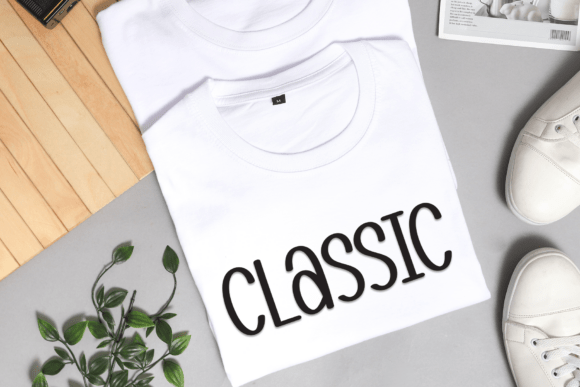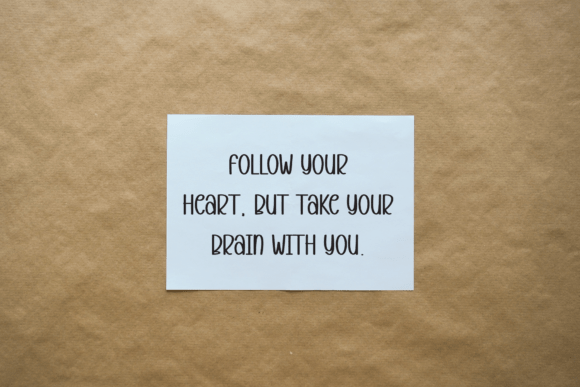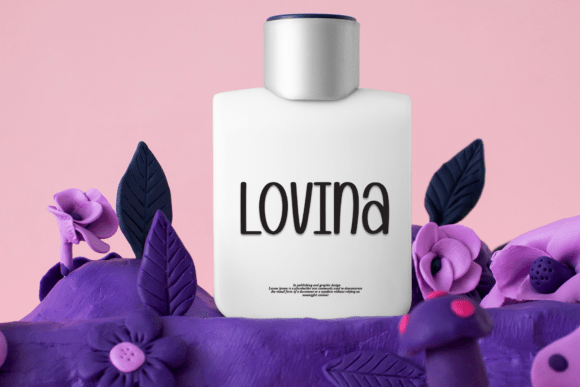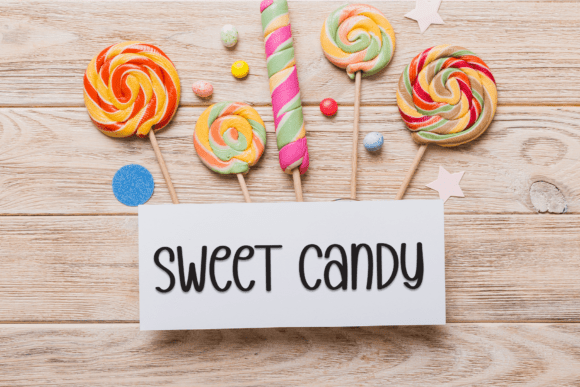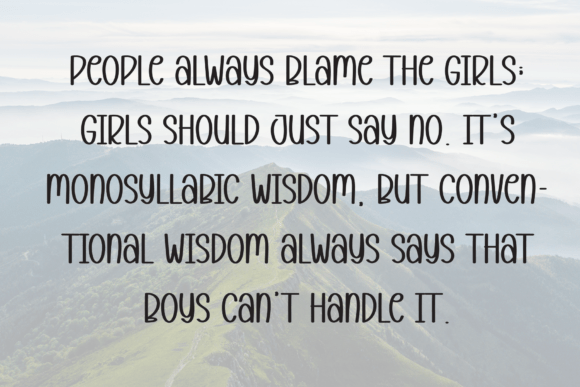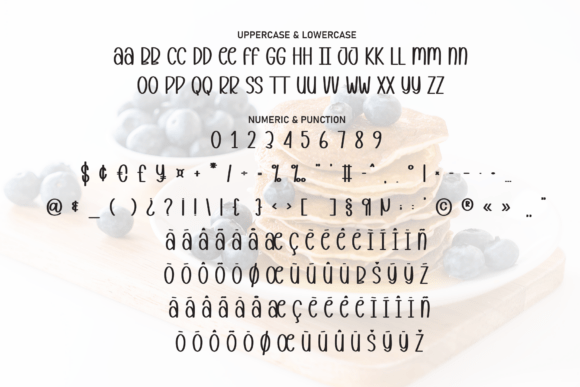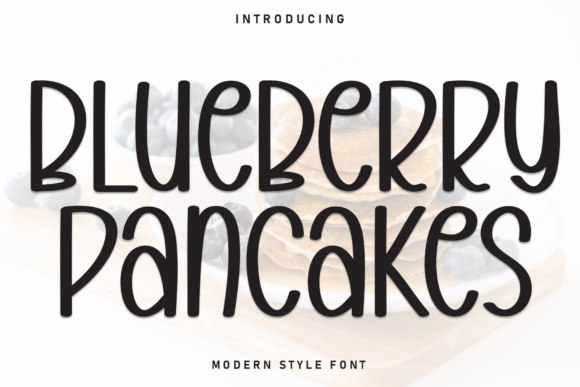
The Blueberry Pancakes Font: A Delicious Addition to Your Design Projects
I’ll never forget the time I was working on a branding project for a trendy new café, and I just couldn’t find the right font to capture their laid-back, yet stylish vibe. The client wanted something that felt fresh, friendly, and approachable, but still conveyed a sense of sophistication. I spent hours scouring font websites, but nothing seemed quite right. That was until I stumbled upon the Blueberry Pancakes font. ✨
This casual display font has been a game-changer for my design projects, and I’m excited to share my love for it with you. In this article, we’ll dive into the features, benefits, and uses of Blueberry Pancakes, as well as some practical tips on how to get the most out of this versatile font.
An Honest Review of Blueberry Pancakes
- ✅ Clean shapes and soft edges that give it a warm, inviting feel
- ✨ Well-balanced letterforms that make it easy to read and understand
- 🎉 A playful, approachable vibe that’s perfect for creative projects
- 💡 Versatile character that works well for posters, branding, packaging, and social media graphics
While Blueberry Pancakes is an excellent font, there are a few things to keep in mind:
- ⚠️ It may not be the best choice for body text or long-form content, as it’s designed for display purposes
- 🤔 Some users may find the font a bit too casual for certain projects, such as corporate branding or formal events
A Practical Guide to Using Blueberry Pancakes
- Experiment with OpenType features, such as stylistic alternates and glyphs, to add visual interest to your design
- Use the font’s stylistic alternates and glyphs to add visual interest to your document
The Backstory Behind Blueberry Pancakes
According to the font’s creators, Blueberry Pancakes was inspired by the warm, inviting atmosphere of a cozy breakfast café. The goal was to create a font that felt fresh, friendly, and approachable, yet still conveyed a sense of sophistication and style. Whether or not that’s true, one thing is certain: Blueberry Pancakes is a font that’s sure to bring a smile to your face and a touch of whimsy to your design projects.
Q: What is Blueberry Pancakes font?
A: Blueberry Pancakes is a casual display font that blends modern simplicity with a playful, approachable vibe.
Q: What is Blueberry Pancakes best used for?
A: Blueberry Pancakes is ideal for posters, branding, packaging, and social media graphics, where a fresh and friendly touch is desired.
Q: Is Blueberry Pancakes easy to read?
A: Yes, Blueberry Pancakes is designed to be easy to read and understand, making it perfect for display purposes.